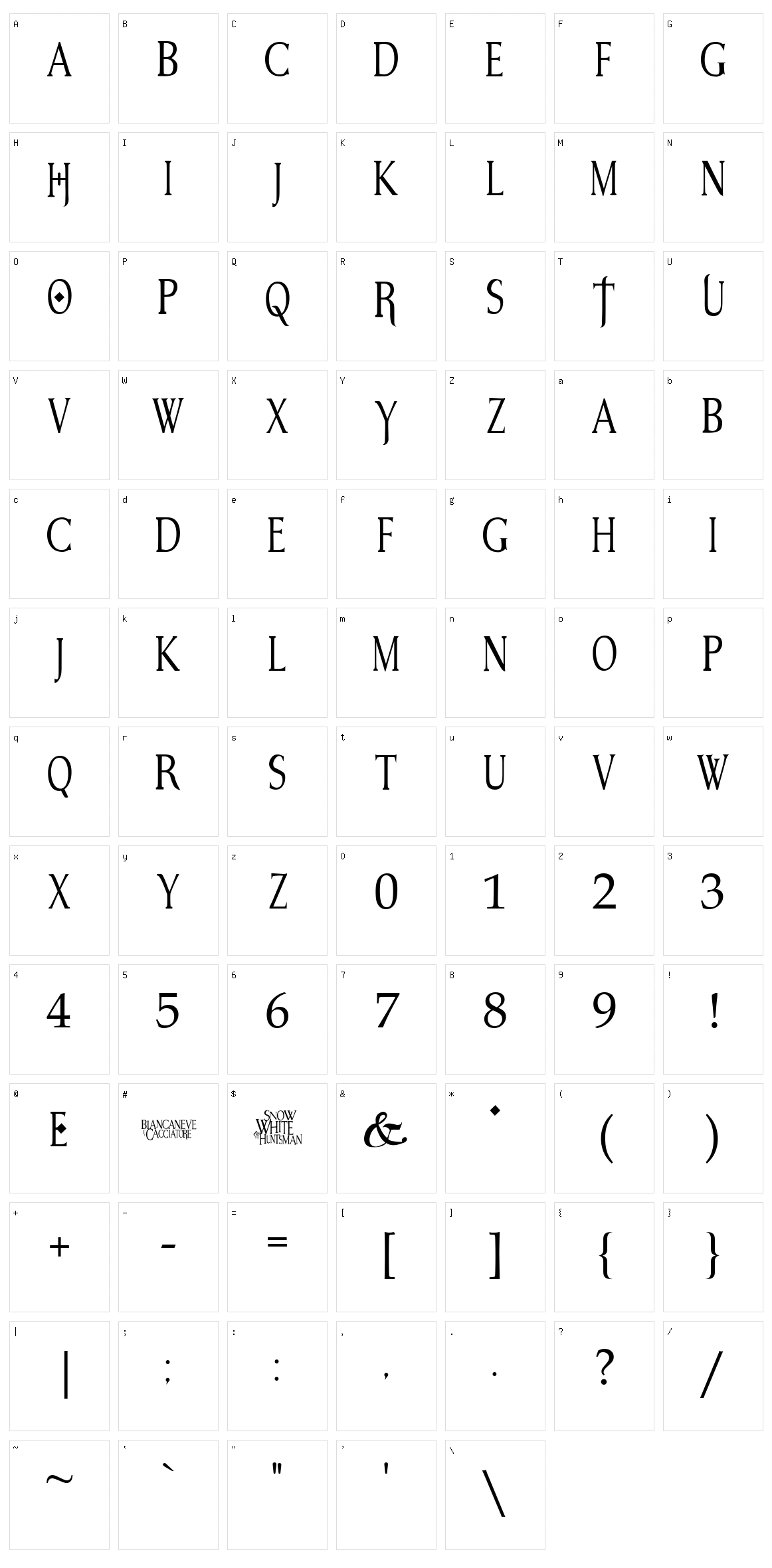
Snow White
Designed by: Alphabet&Type?
x BIANCANEVE E IL CACCIATORE FONT x
Font name: SNOW WHITE (KIRSTEN STEWART Collection) - Latin Decorative font (versione 1.0)
Type designer: P. A. Vannucci
BIANCANEVE E IL CACCIATORE font: direttamente dal film diretto da Ruper Sanders e interpretato da Kristen Stewart, il font inedito per tutti
gli estimatori del film. Da notare il ritocco necessario in Photoshop per conferire, alla titolazione, l'originale bordatura.
SNOW WHITE & the HUNTSMAN font: directly from the Best movie by Rupert Sanders, with Kristen Stewart,
the original font for all lovers. Use ADOBE Photoshop for the original border from title.